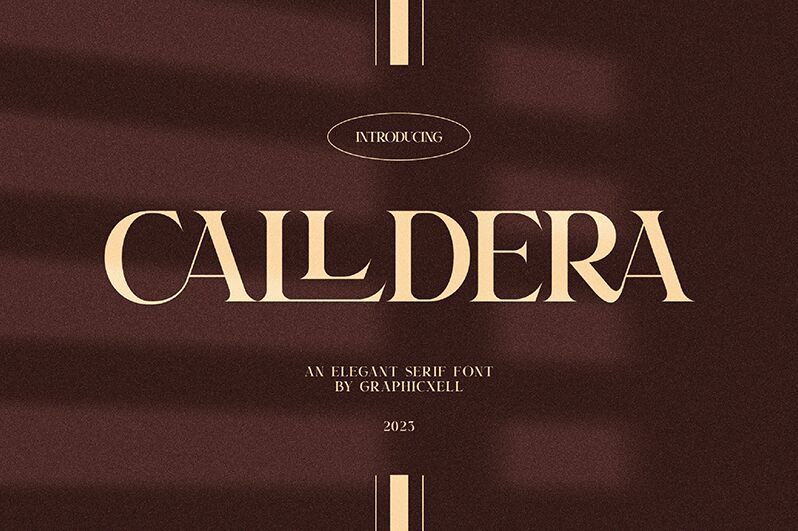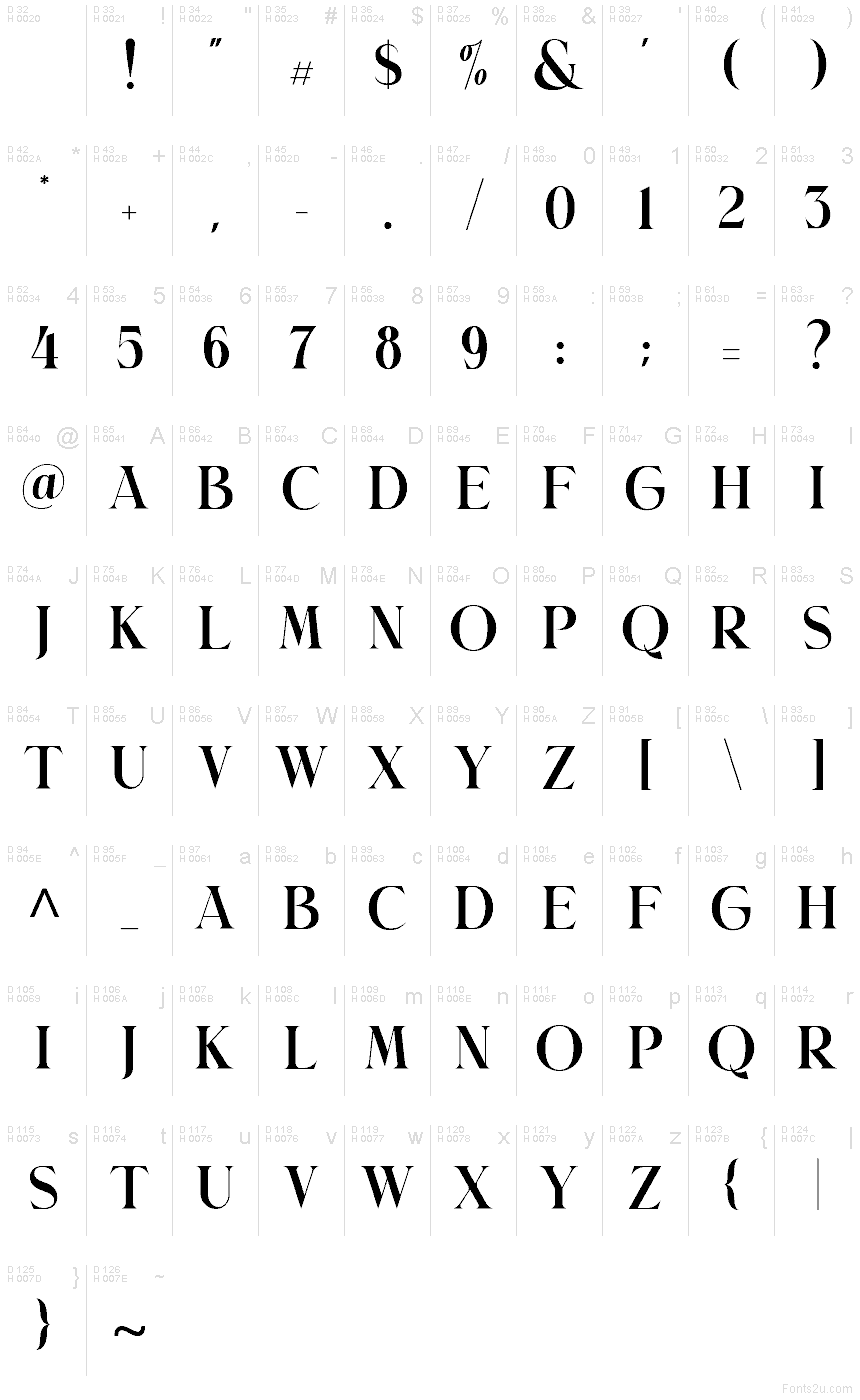
Calldera
Calldera font by Graphicxell is a free serif typeface. Its personality comes from bold verticals that meet crisp hairline details and sharply cut serifs, giving each word a sculpted, inky finish. Subtle scoops and carved interiors add a chic rhythm that feels both editorial and luxurious, like headlines stamped into glossy stock.
Using Calldera, your work gains a couture snap that shines on luxury logos, magazine mastheads, beauty packaging, event posters, book covers, and album art. This free font holds space confidently—set it large with a touch of extra letterspacing. For balance, pair it with a neutral geometric sans to handle supporting text.